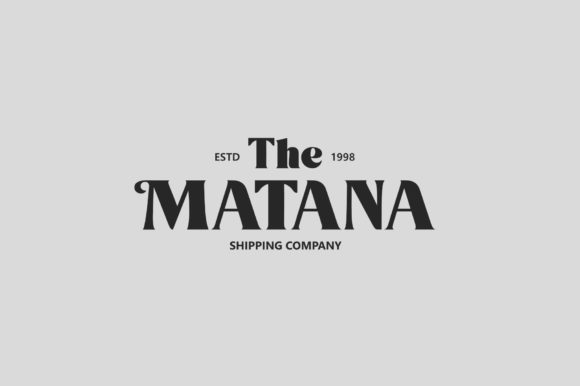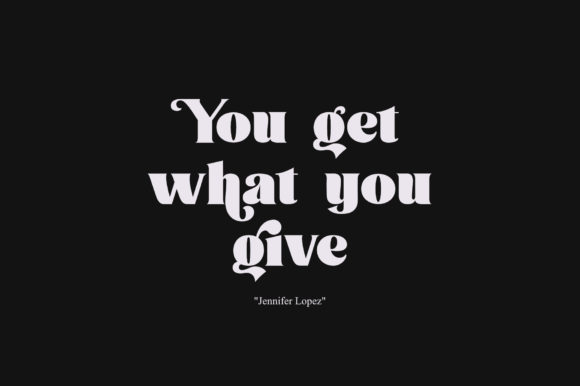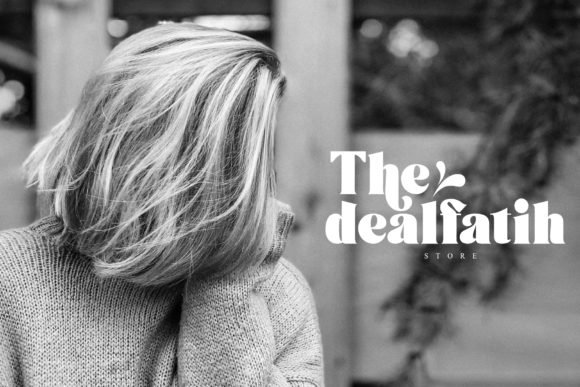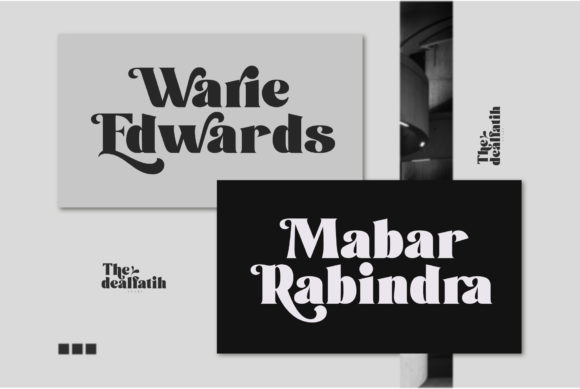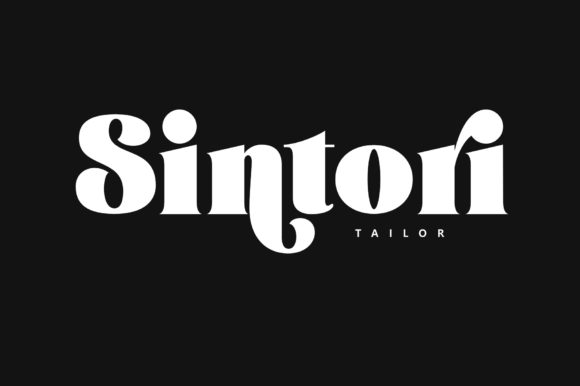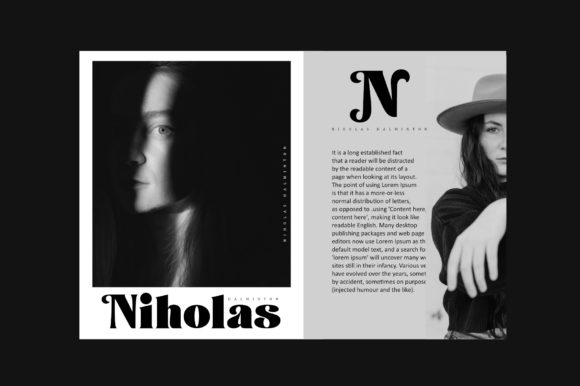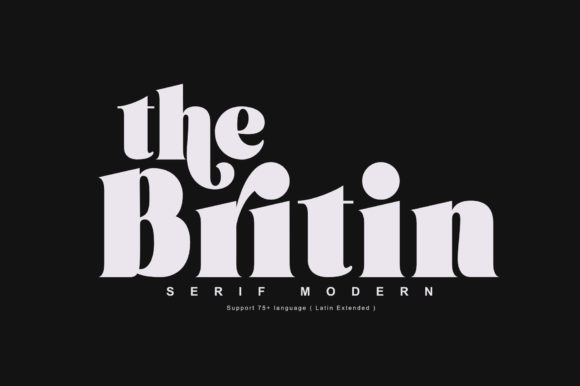
Discover the Elegance of Britin Font: Elevate Your Designs with Versatility
In the world of typography, fonts play a pivotal role in conveying messages, evoking emotions, and creating lasting impressions. Among the myriad of fonts available, Britin Font stands out for its elegant and bold serif characteristics, offering designers and crafters a versatile tool to enhance their creative projects. Whether you’re looking to craft stunning invitations, design beautiful stationery, or create eye-catching social media posts, Britin Font is your go-to choice for making a statement.
The Essence of Britin Font
Britin Font is not just any ordinary font; it’s an elegant and bold serif font that exudes sophistication and charm. Its design is meticulously crafted to cater to a wide range of creative needs, making it incredibly versatile. The font’s classic serif structure provides a sense of tradition and reliability, while its boldness adds a modern touch, making it perfect for both digital and print media.
One of the key advantages of Britin Font is its versatility. This font can seamlessly adapt to various design contexts, including:
- Invitations: Create gorgeous invitations for weddings, parties, and formal events with a touch of elegance.
- Stationery Art: Design beautiful stationery, including letterheads, notebooks, and journals, that reflect a sense of sophistication.
- Social Media Posts: Make your social media posts stand out with the font’s bold and eye-catching style, perfect for grabbing attention.
- And Much More: From branding and advertising to packaging and web design, Britin Font’s adaptability knows no bounds.
Why Choose Britin Font?
Choosing Britin Font for your design projects comes with numerous benefits:
- Elegance: Add a touch of elegance to your designs with its sophisticated serif structure.
- Boldness: Make a statement with its bold style that commands attention.
- Versatility: Use it across various platforms and design contexts without compromising on style or legibility.
- Easy to Read: Despite its boldness, the font remains clear and easy to read, making it perfect for both headings and body text.
Tips for Using Britin Font Effectively
To maximize the potential of Britin Font, consider the following tips:
- Mix and Match: Combine Britin Font with other fonts to create a unique and visually appealing design.
- Play with Sizes: Use different font sizes to create a hierarchy of information and add depth to your designs.
- Experiment with Colors: While the font itself is bold, experimenting with different colors can further enhance its appearance and adapt it to your brand’s palette.
Britin Font is more than just a font; it’s a design companion that can elevate your creative projects to new heights. Its elegant and bold serif style, coupled with its incredible versatility, makes it an indispensable tool for designers and crafters. Whether you’re aiming to create stunning invitations, beautiful stationery art, or eye-catching social media posts, Britin Font is your key to unlocking a world of design possibilities. Embrace the elegance and boldness of Britin Font and watch your designs leave a lasting impression.